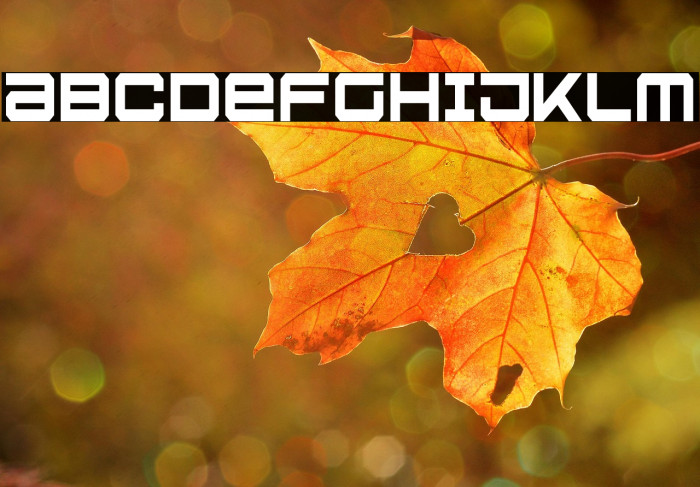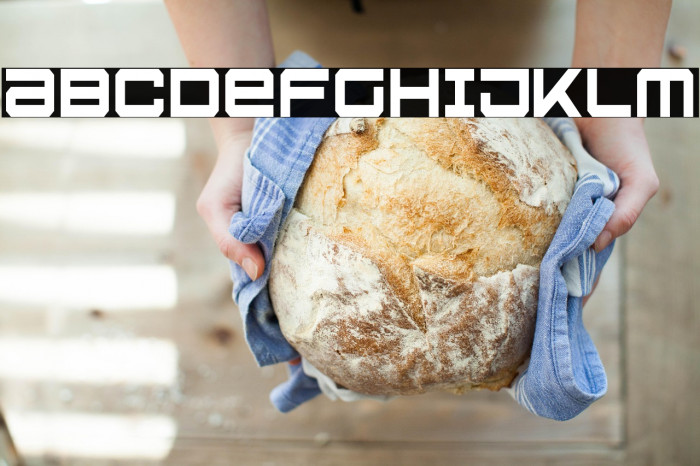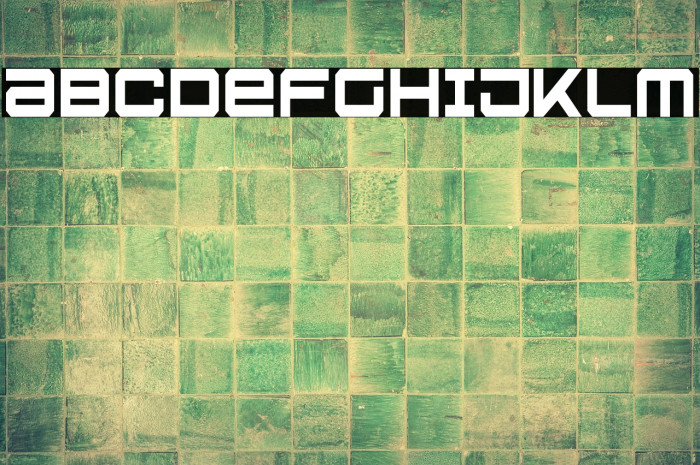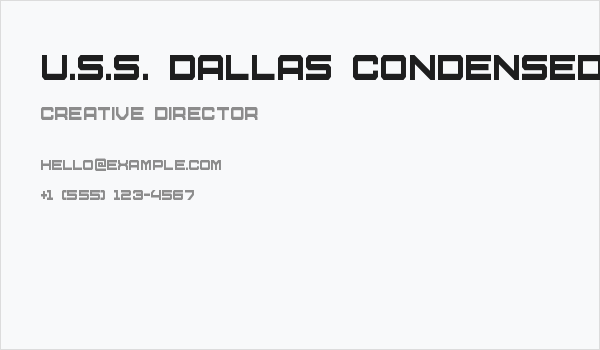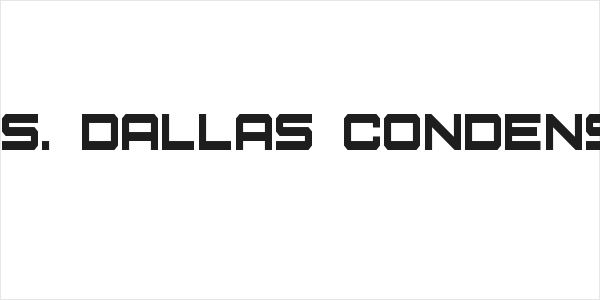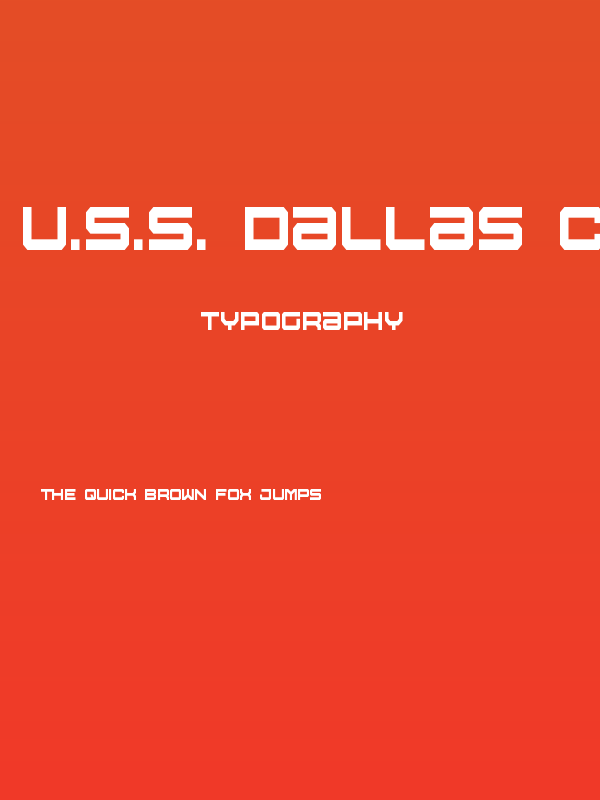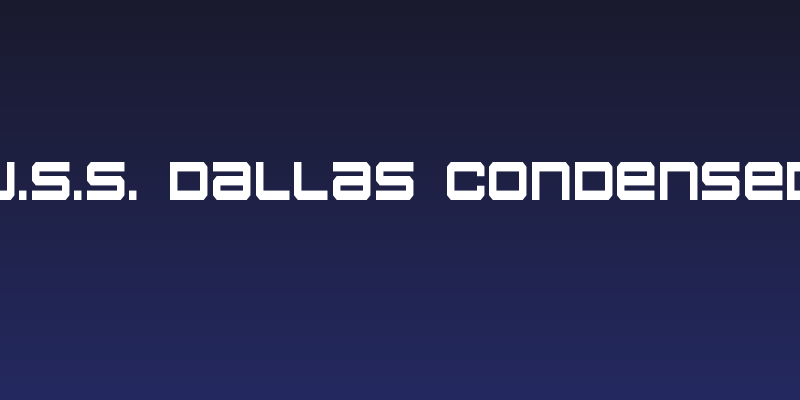
U.S.S. Dallas Condensed Font
U.S.S. Dallas Condensed Description
This font features a bold and geometric design with a condensed structure, giving it a modern and futuristic appearance. The characters are constructed with sharp angles and straight lines, creating a sense of precision and strength. The uppercase and lowercase letters maintain a consistent height, contributing to its uniform look. The numerals and special characters follow the same design principles, ensuring a cohesive style throughout. This font's distinct and striking appearance makes it suitable for impactful and attention-grabbing designs.
| Proposed Projects | Ideal for technology branding, sci-fi themed projects, video game interfaces, and modern advertising campaigns. |